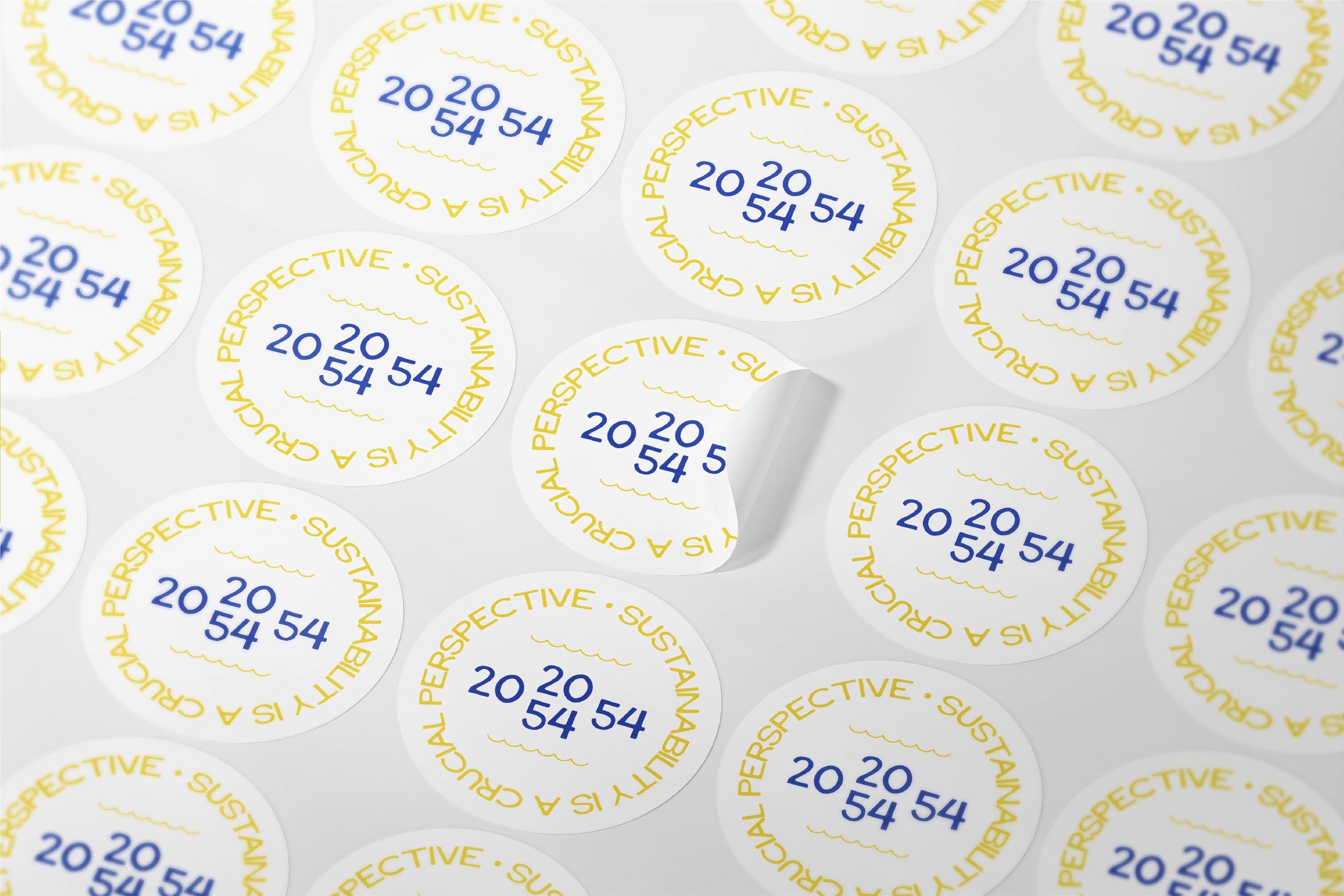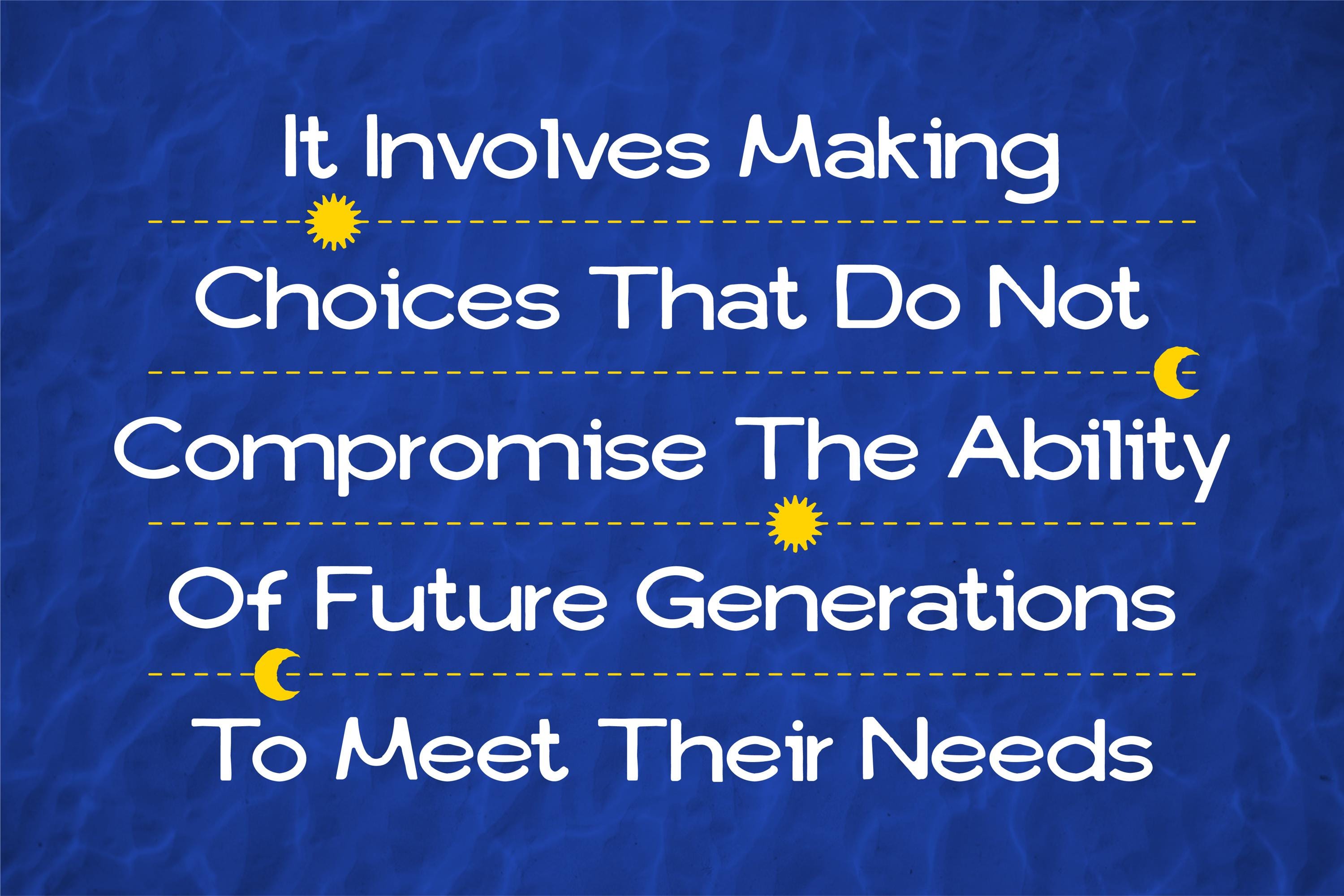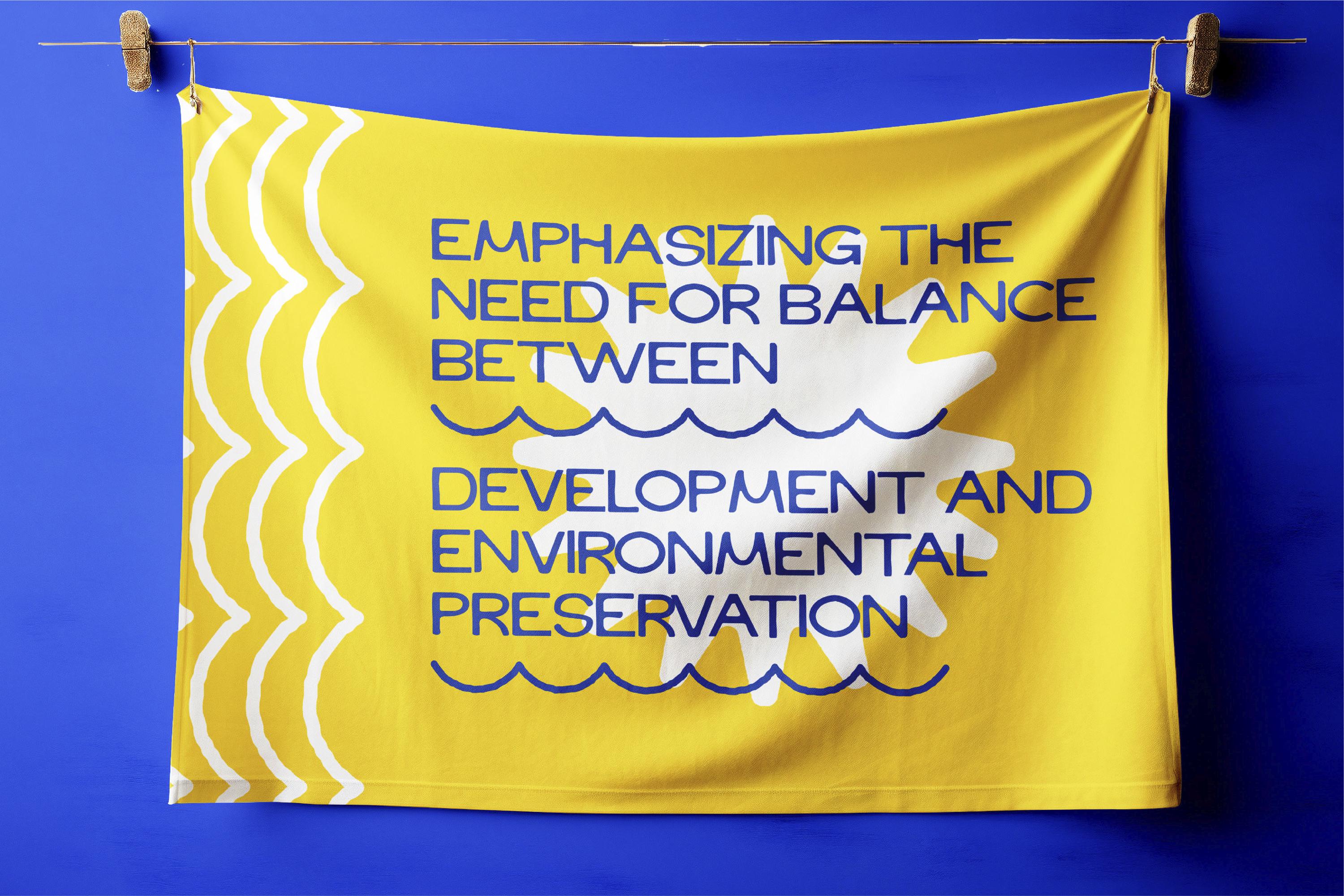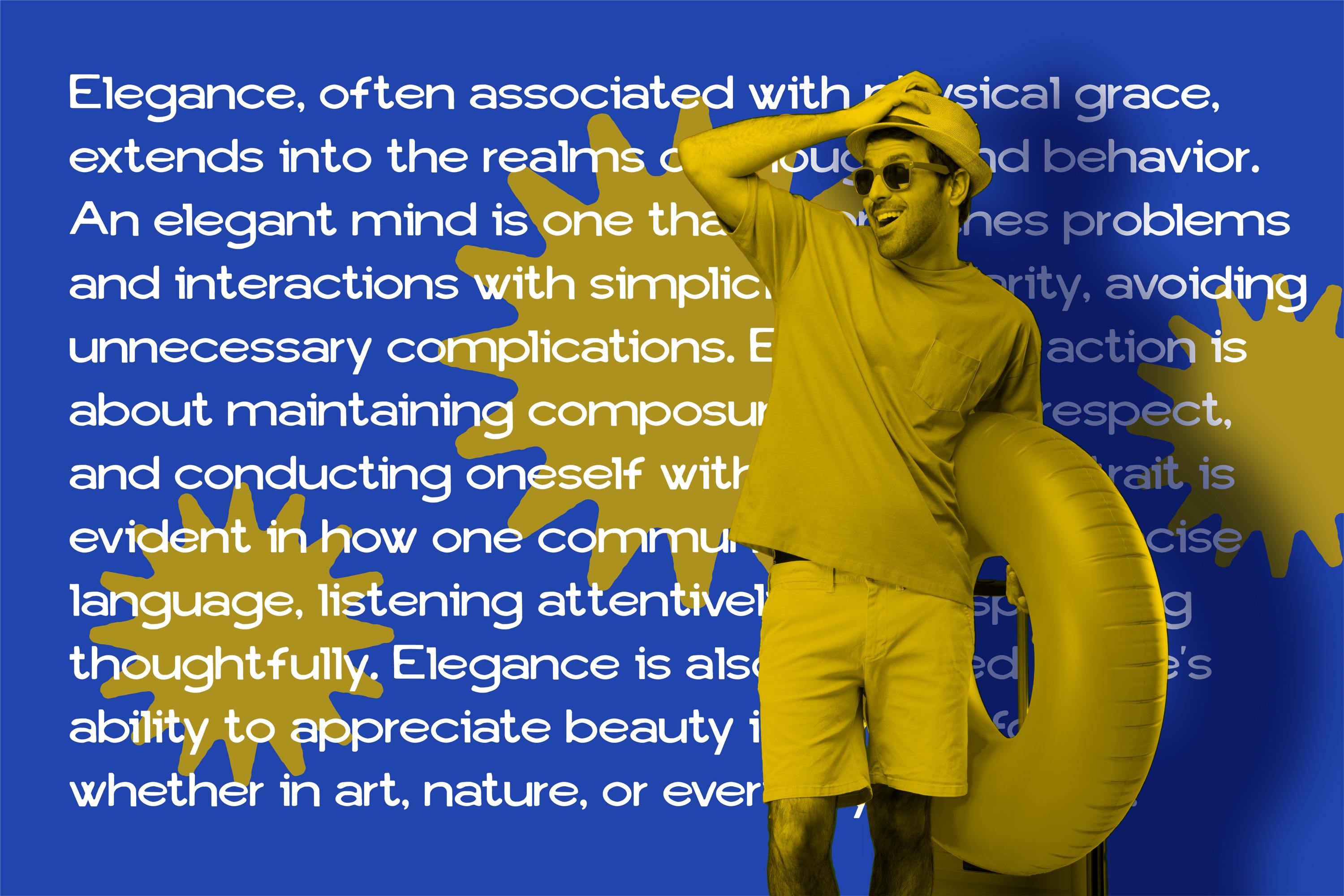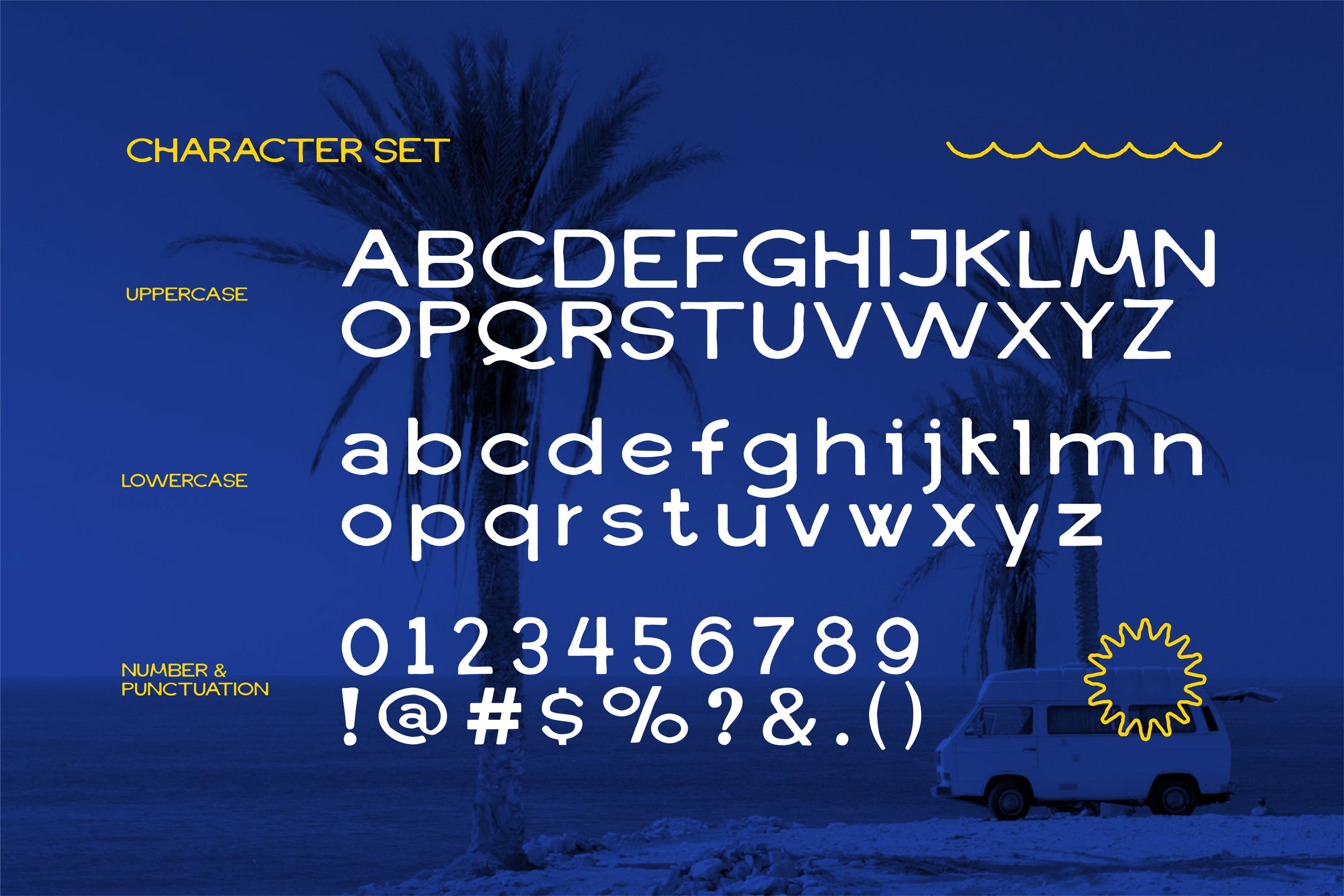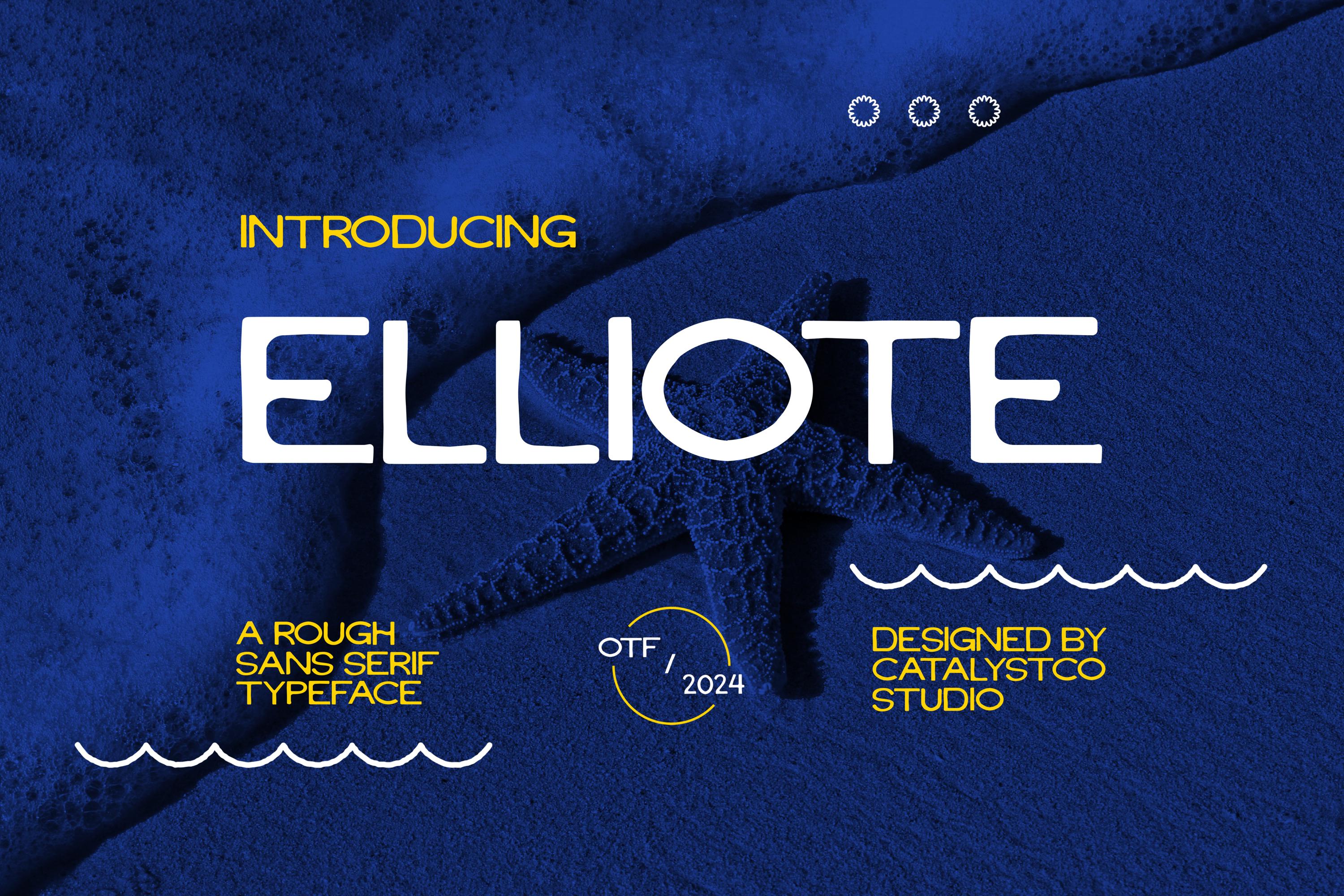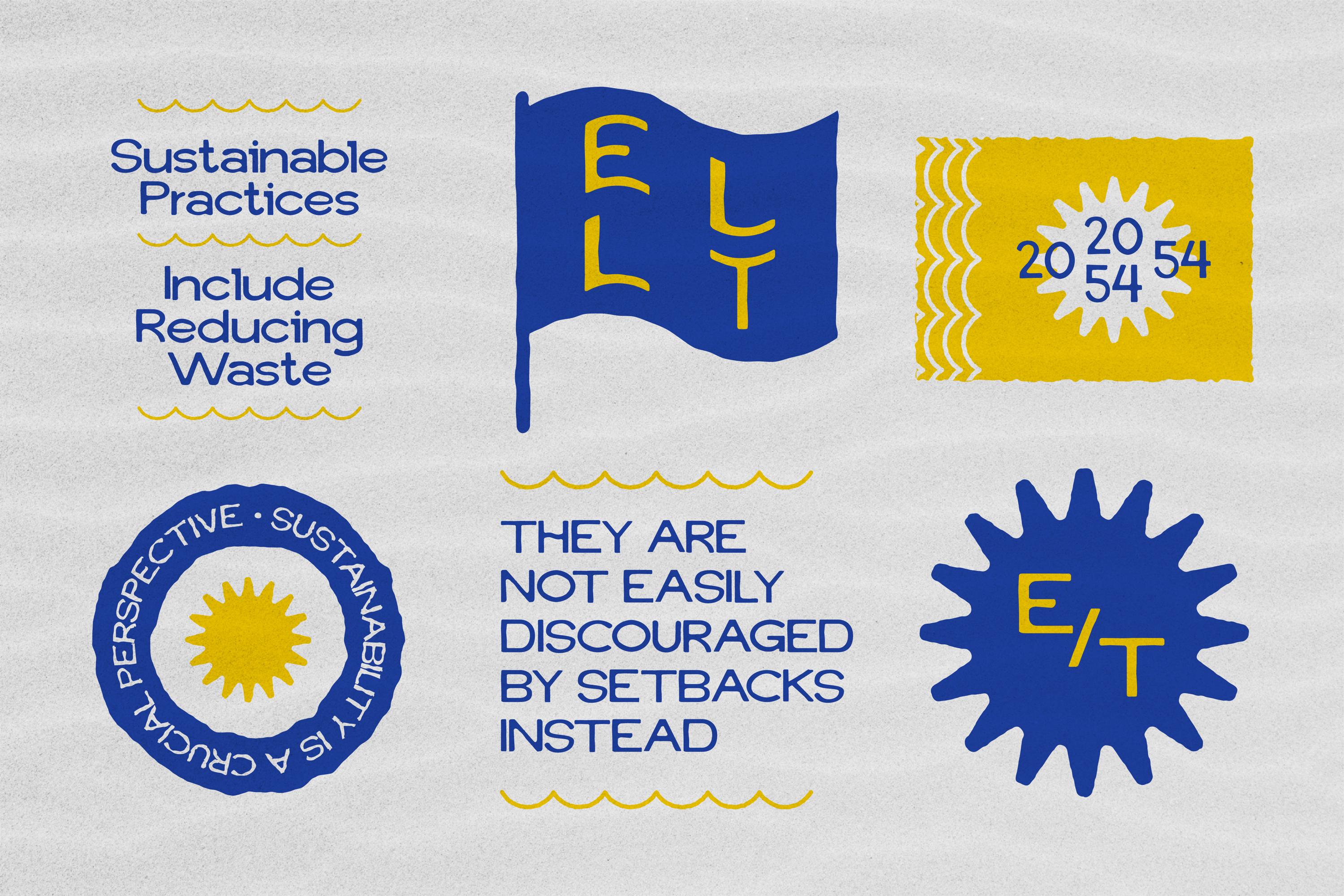
Luxe Sans Serif Typeface - Elegant & Modern Font for Professional Designs, Premium Luxury Aesthetic
Introducing our new "Elliote" Modern Font, boasting an Elegant Style, perfect for branding, logos, master heads, and myriad other applications.